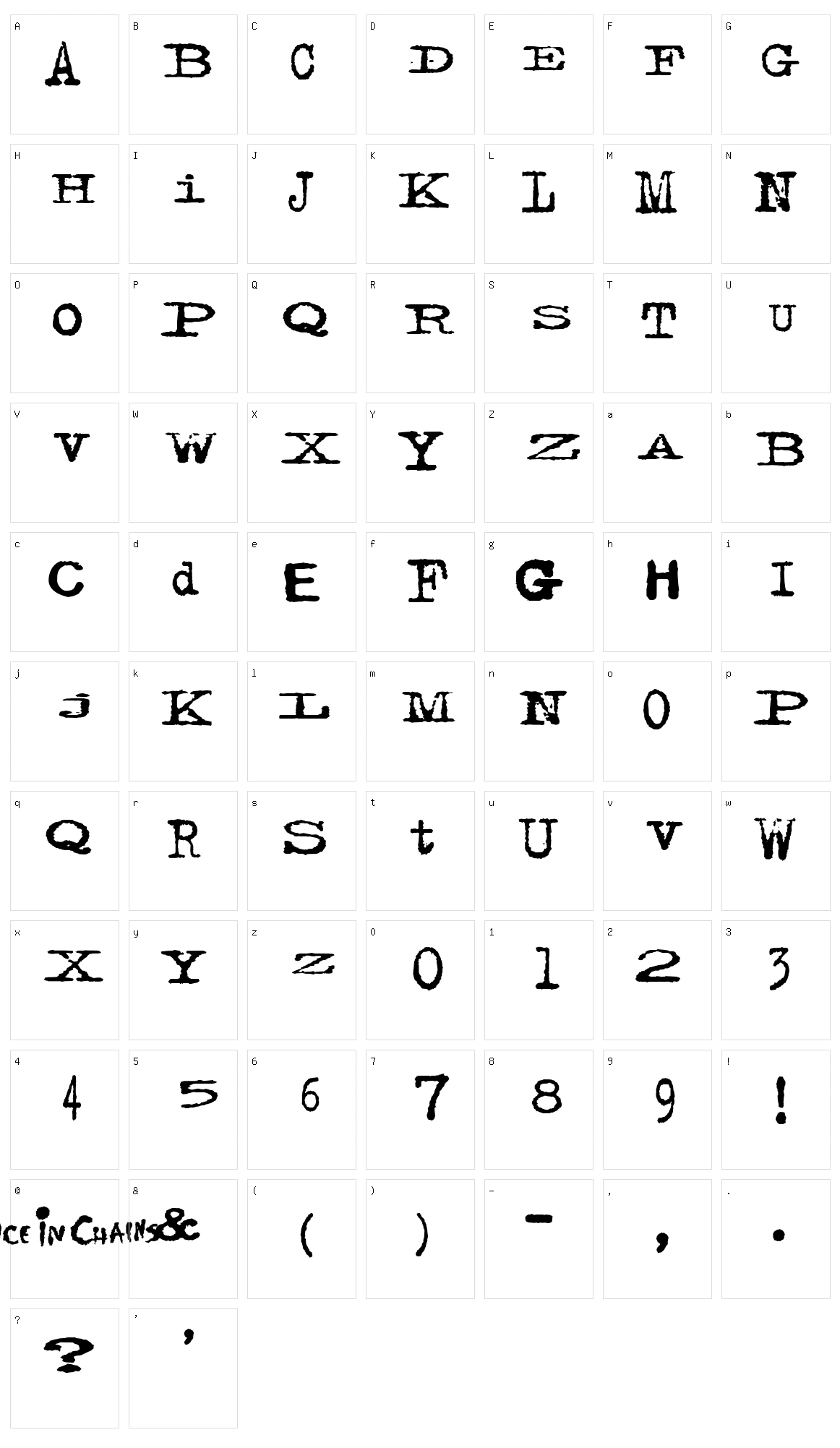
The free font Facelift is carefully designed by Funky Type, showcasing a thoughtful balance of creativity and usability and falls under the Typewriter font style. When you download the ZIP file, it contains only 35.19 KB of font files, making it lightweight and quick to download. Please review the license details below to understand permitted usage and distribution rights. If license information is not available, we recommend using this font for personal projects only or contacting the author directly for commercial usage permissions.